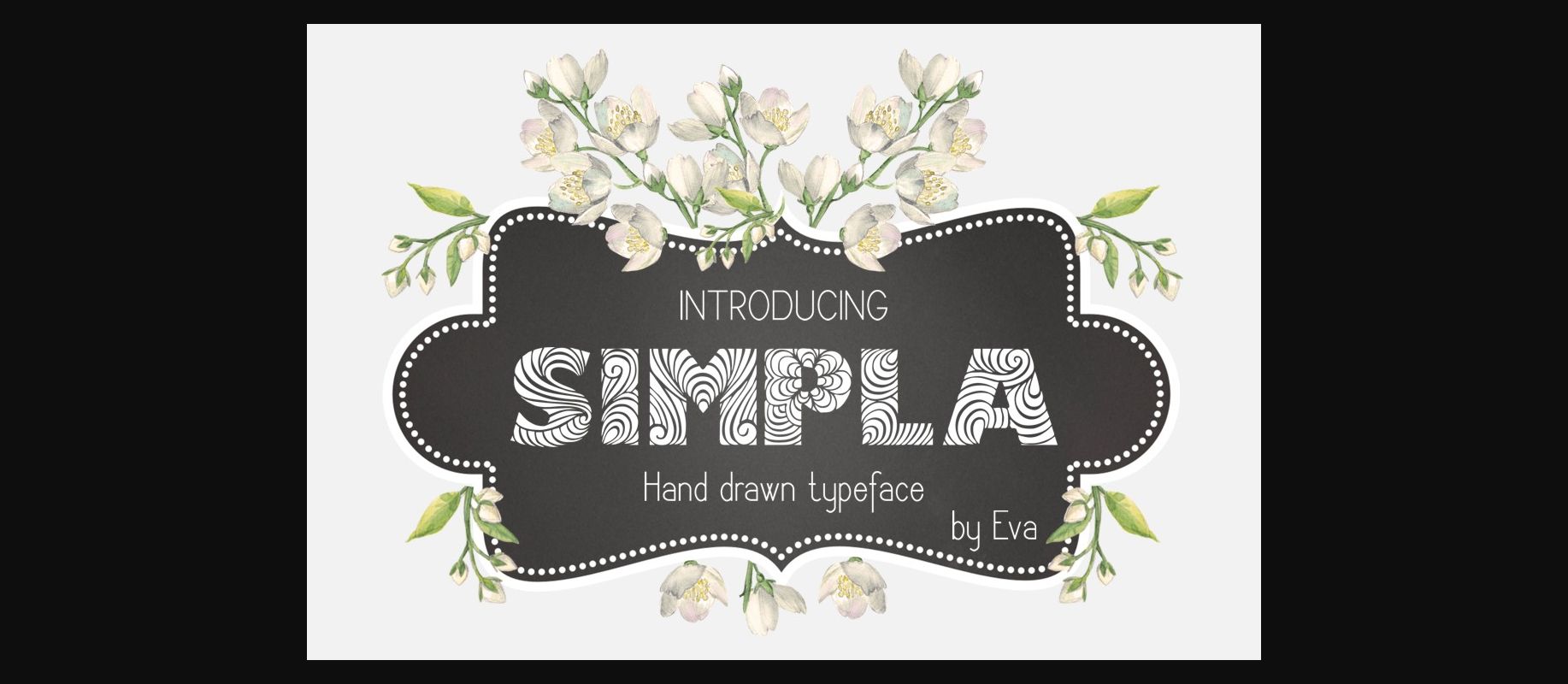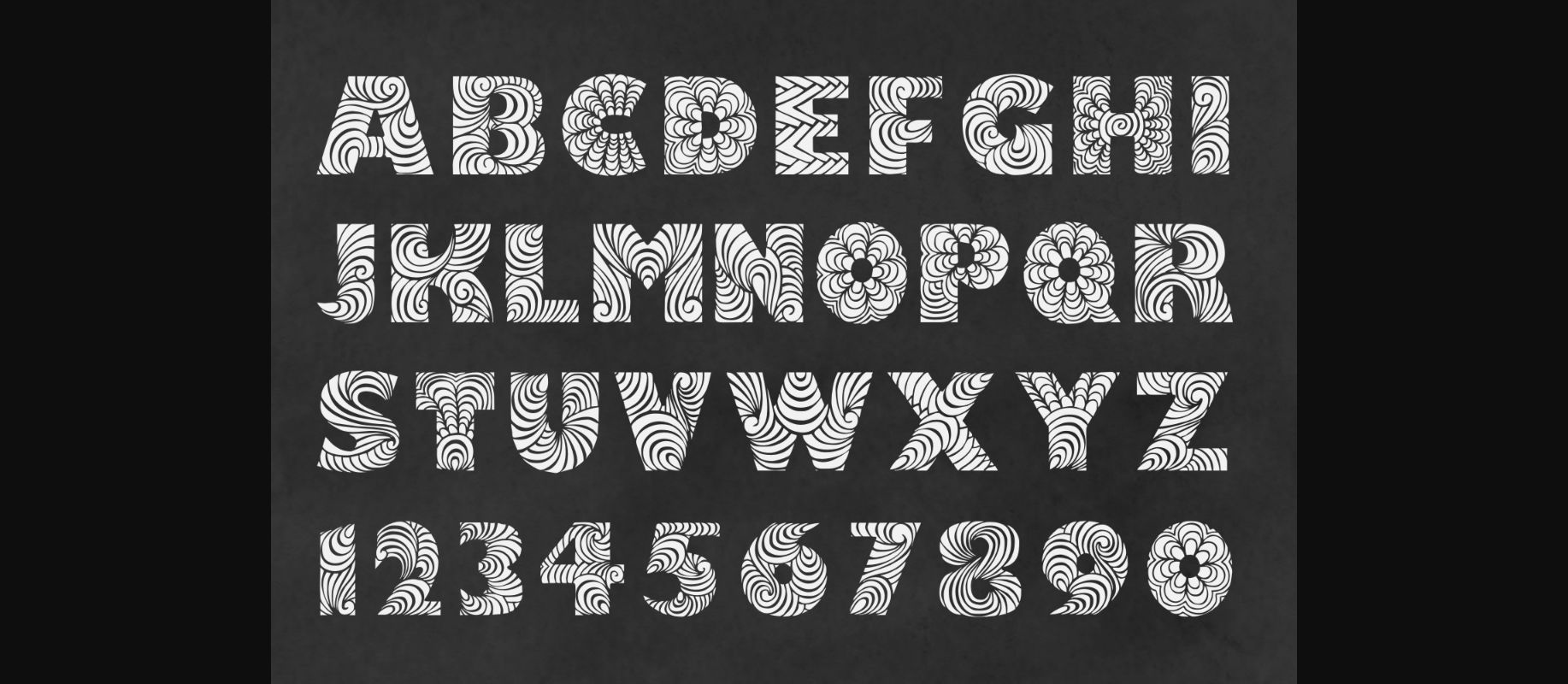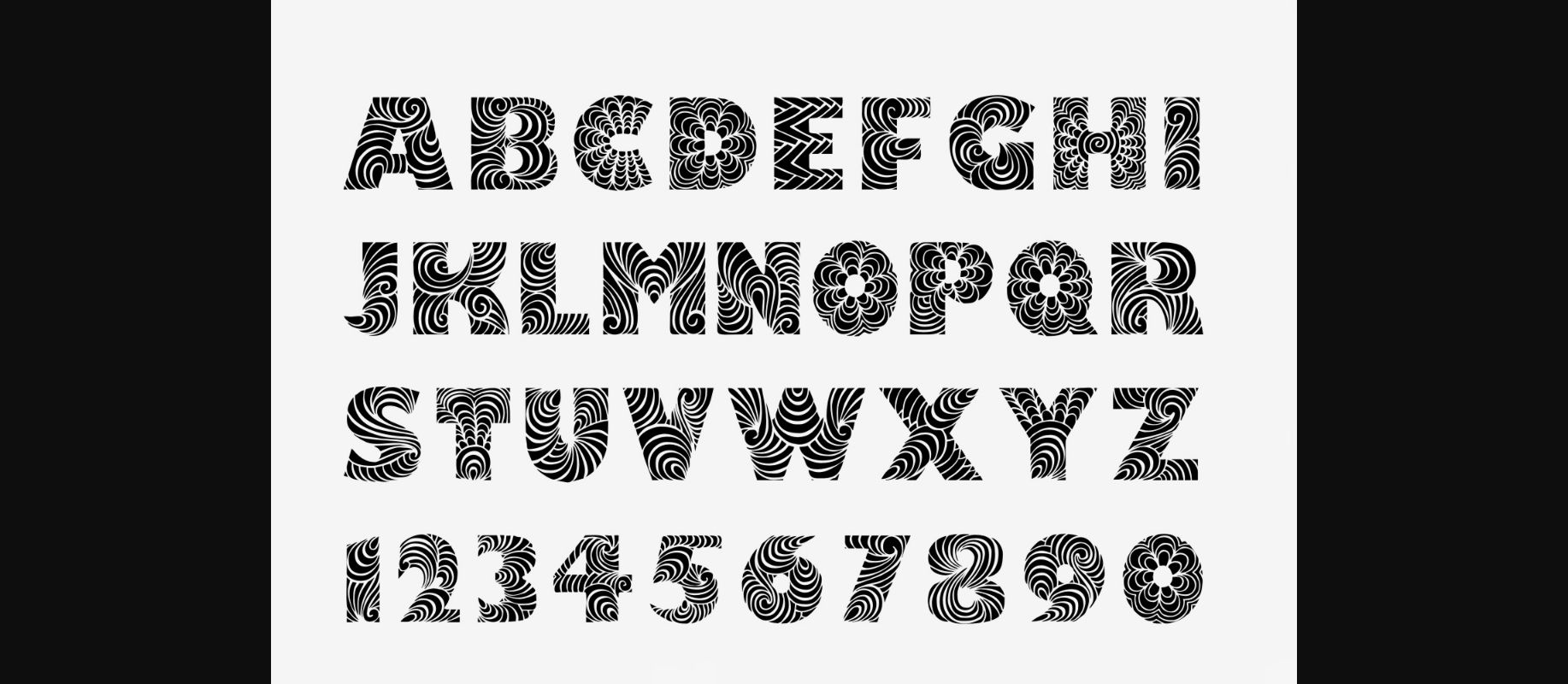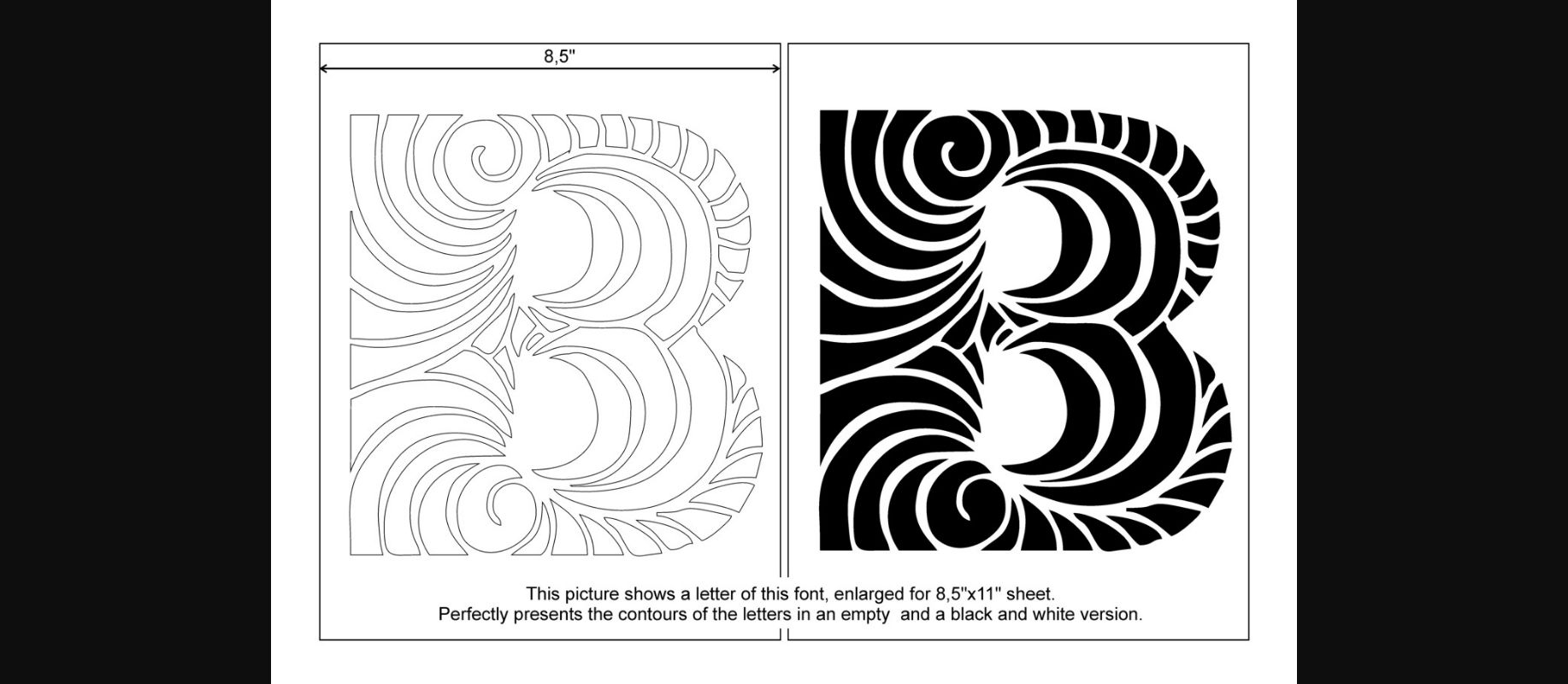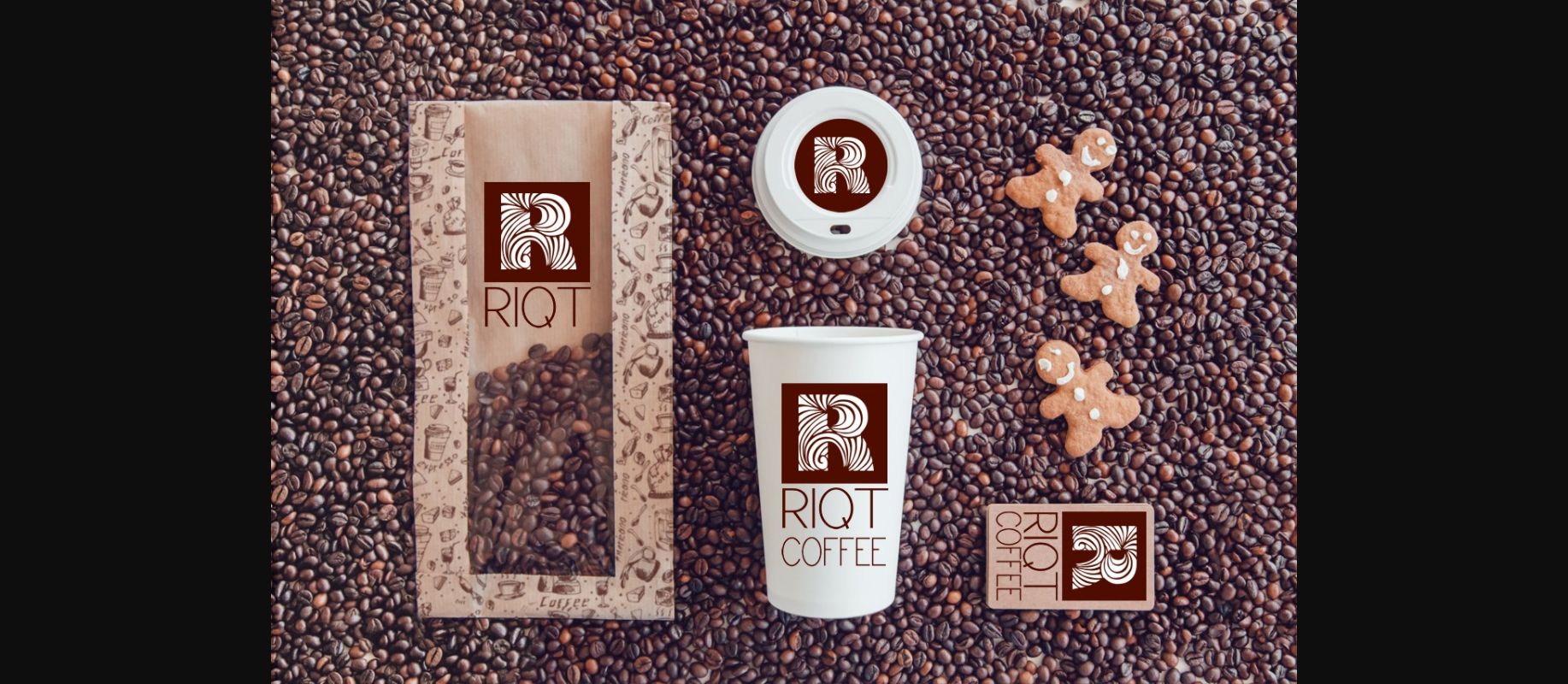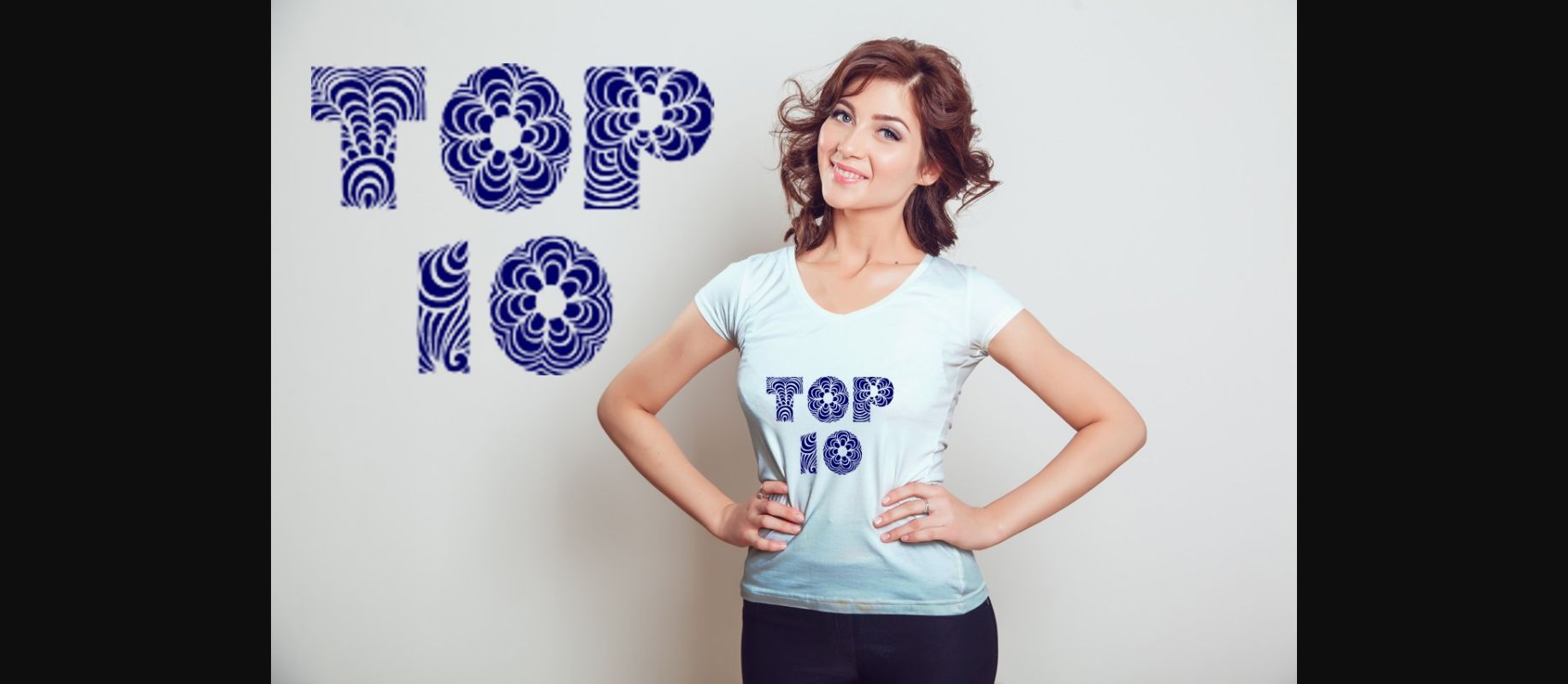
Simpla Font
About Simpla Font
Simpla is hand drawn typeface created for crafters & designers who look for fresh fancy decorated letters.
This font contains capital letters and numbers.